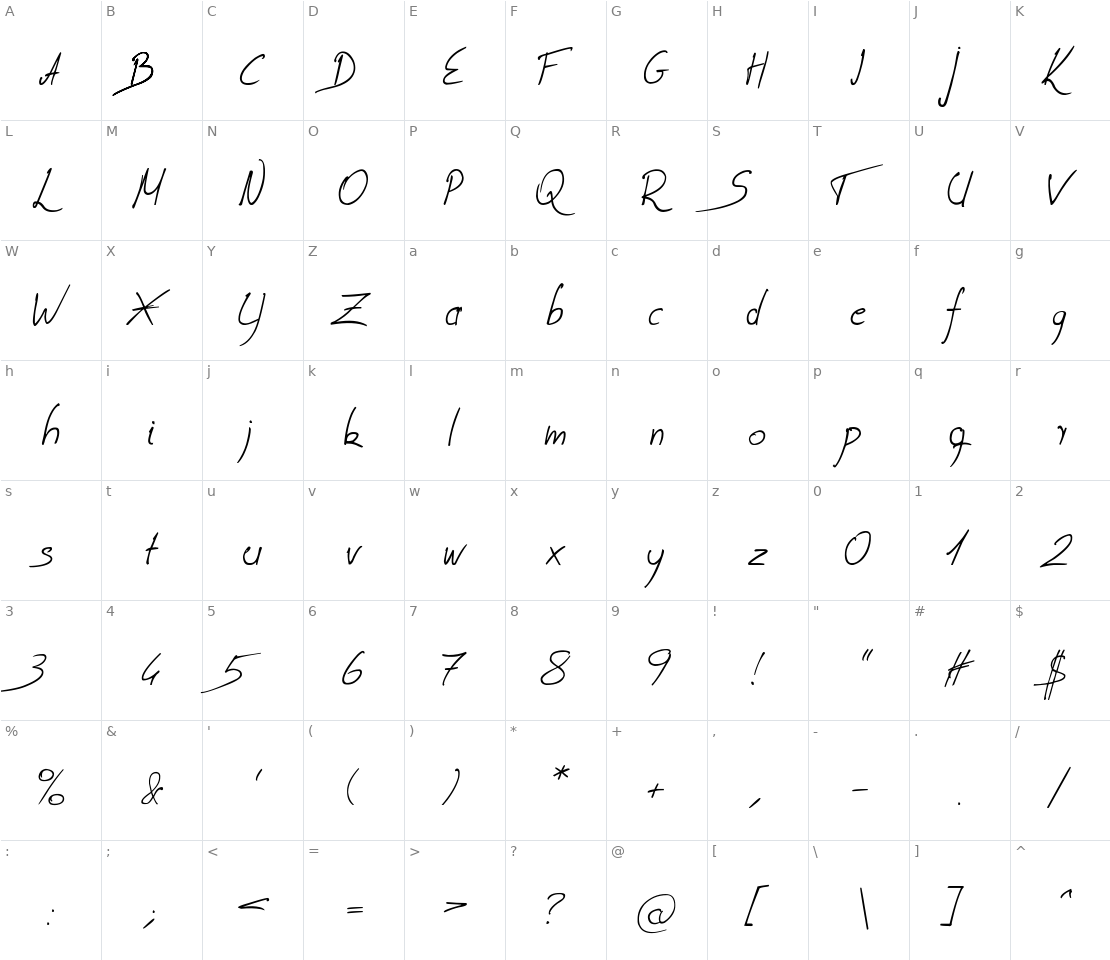
Coire
Coire is a thin, casual handwritten face from Typesgal with the kind of natural irregularity that comes from actual pen-on-paper writing. The letterforms are light and unhurried, with organic strokes that vary just enough to feel like a real signature rather than a constructed script. It works well for personal branding, invitations, and informal layouts where you want something that reads as genuine and unforced.